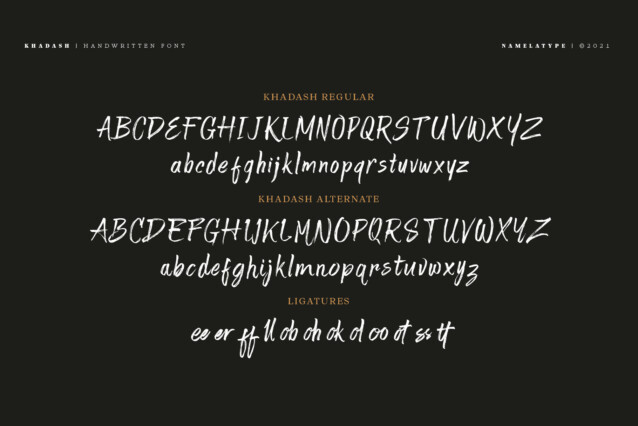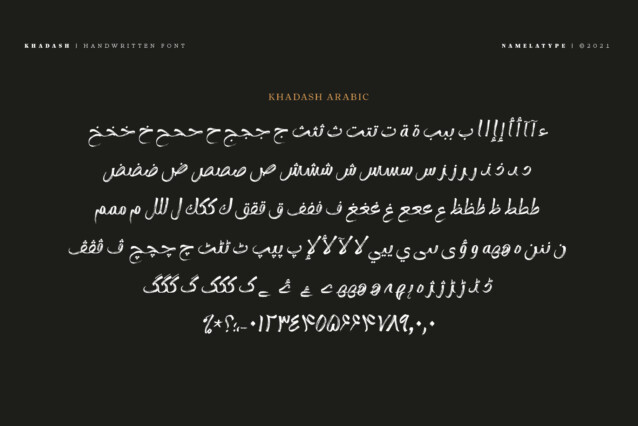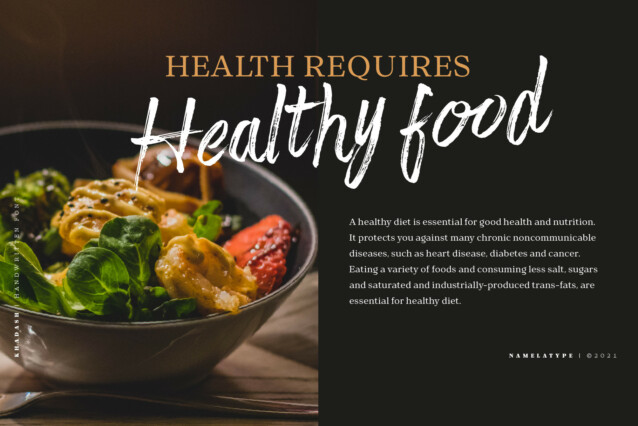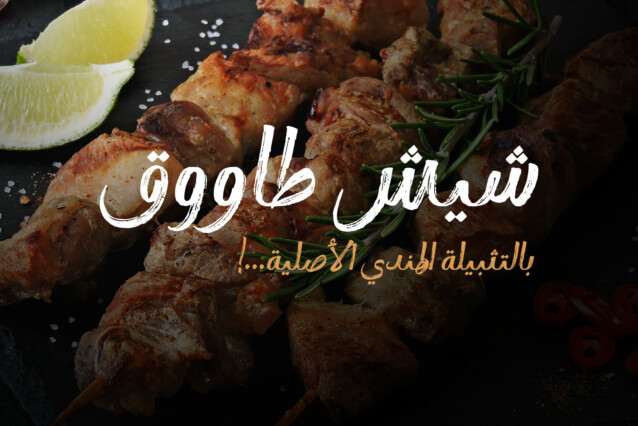
Khadash Arabic Font
Khadash Arabic Font is a captivating fusion of Latin and Arabic script, skillfully blending natural strokes that mirror real handwriting. The Arabic and Latin components are thoughtfully separated into distinct subfamilies to optimize font size and utility. In the Latin section, you’ll find two sets of characters: one for regular use and another for alternate styling.
Khadash font’s fluid and organic design is a versatile asset for a wide array of creative projects. It’s the perfect choice for branding initiatives, enhancing product packaging, creating eye-catching merchandise, crafting compelling advertisements, or imbuing quotes with a touch of artistic elegance. With Khadash font, you have a font that bridges cultures and brings a unique blend of authenticity and style to your creative endeavors, both in Latin and Arabic scripts.